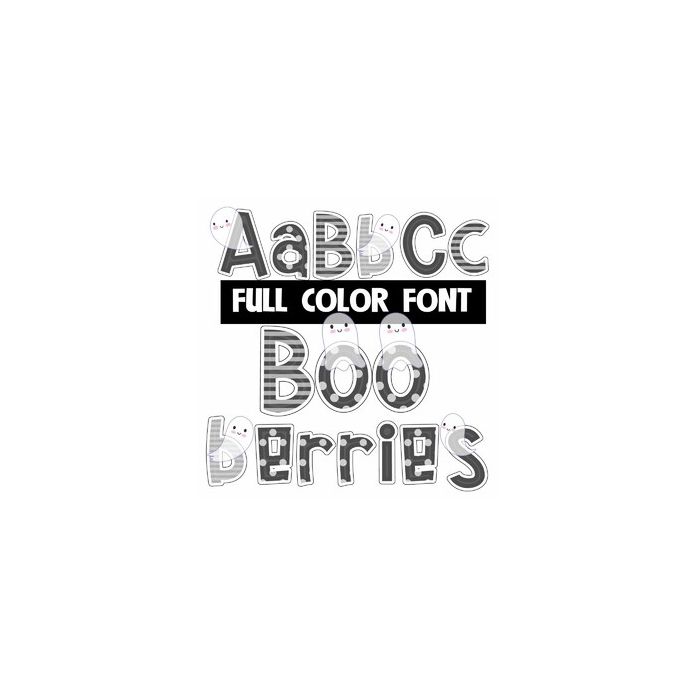
This full-color font features gray-colored lettering w/ patterns and transparent ghosts. This font works best for titles, displays, posters and more. Please note color fonts will show as black in non compatible programs. This font type is compatible with Silhouette Studio.